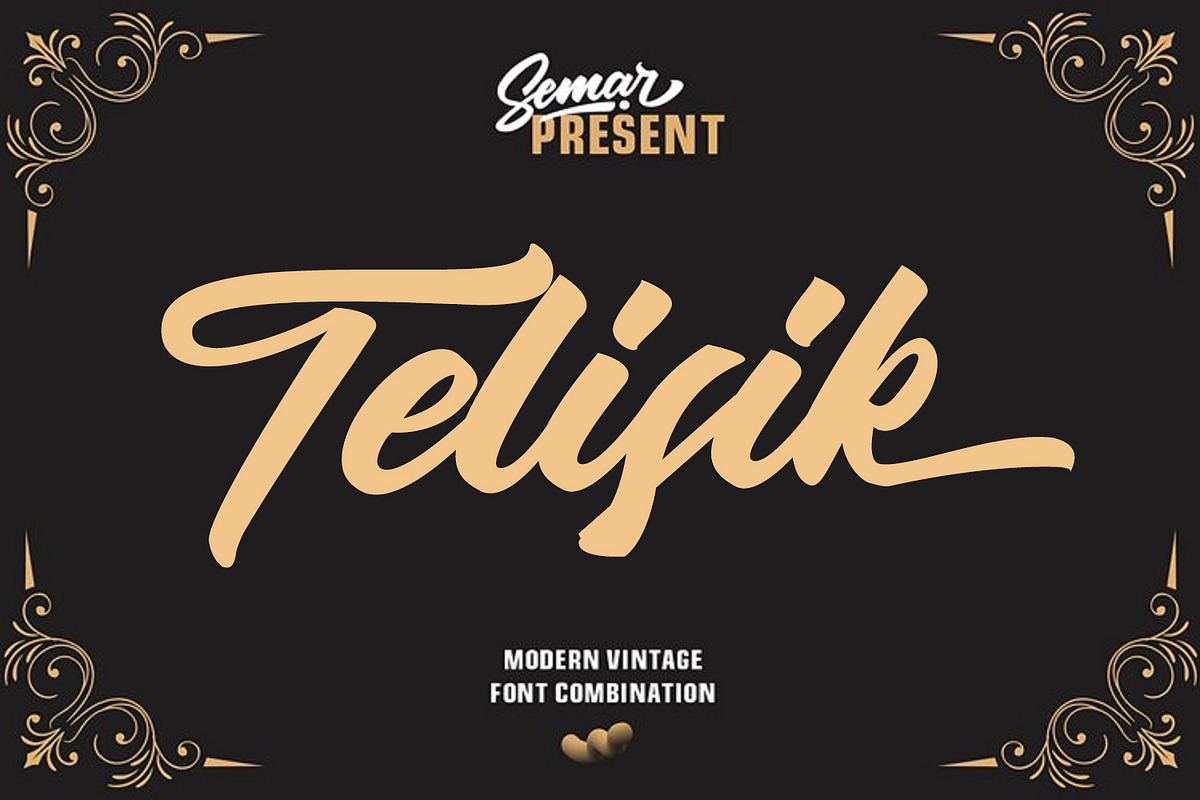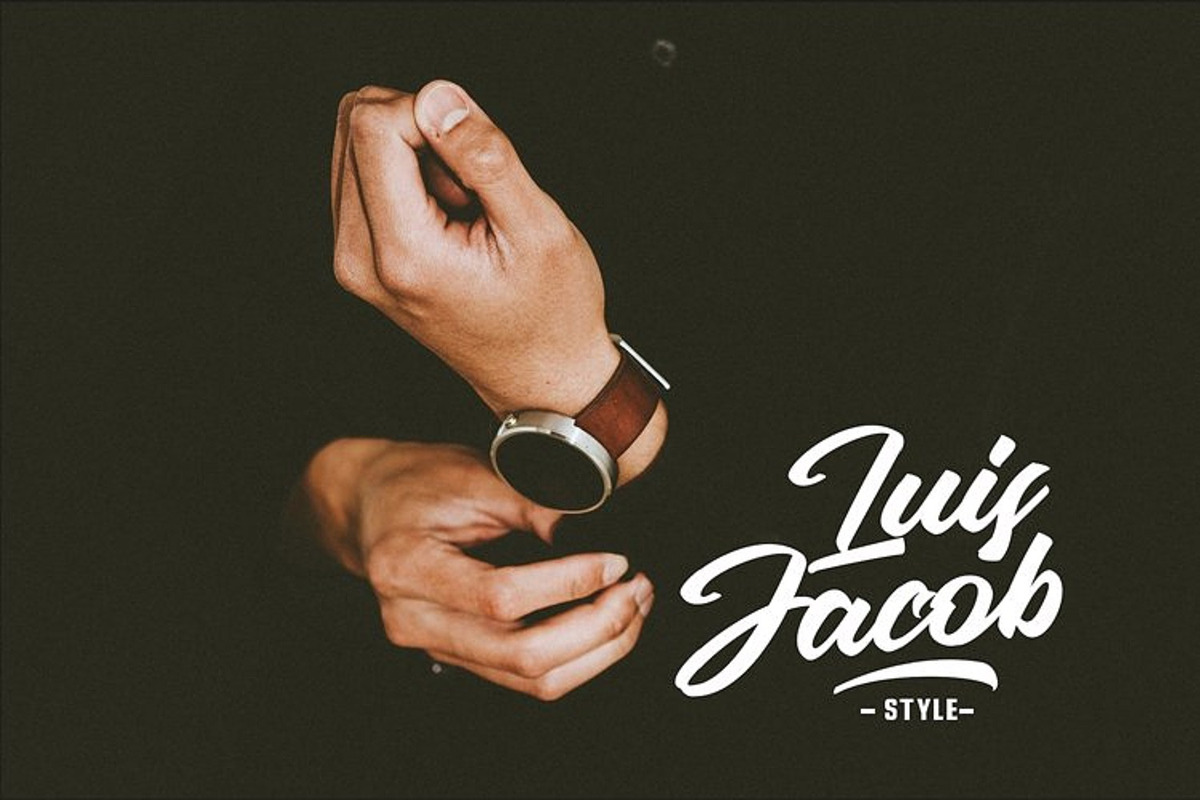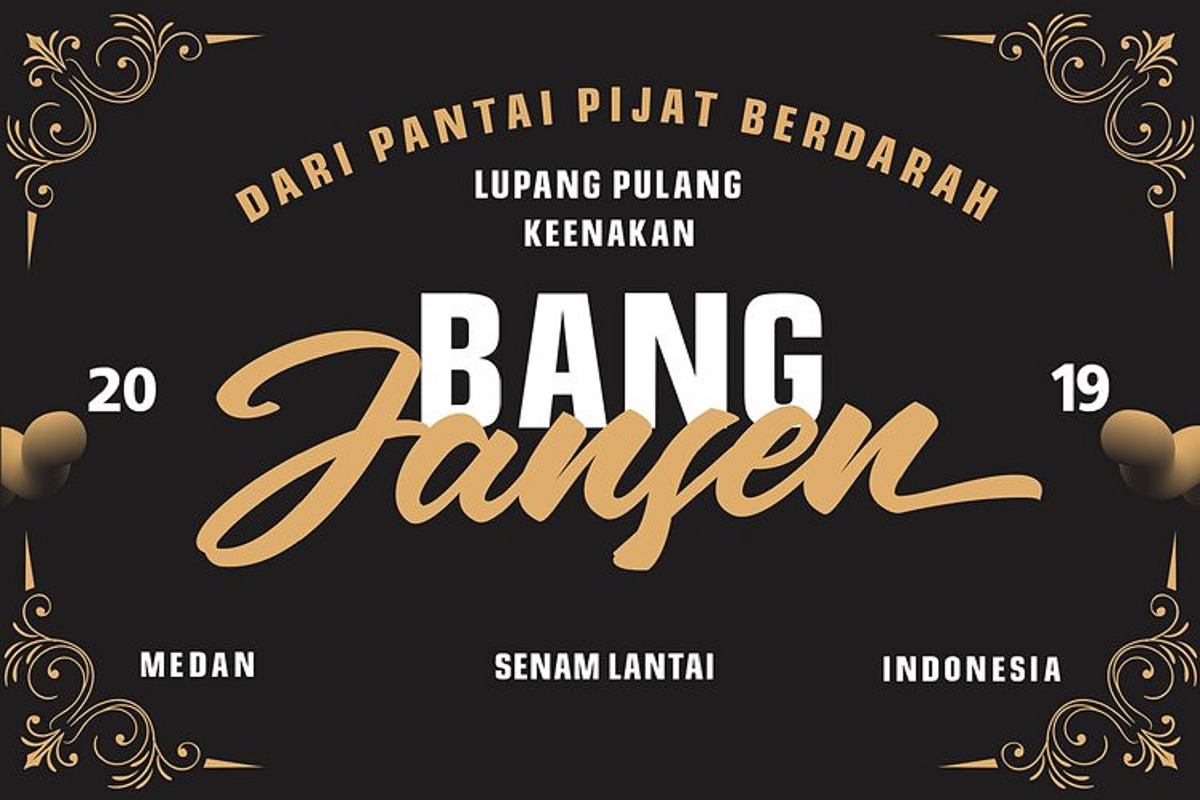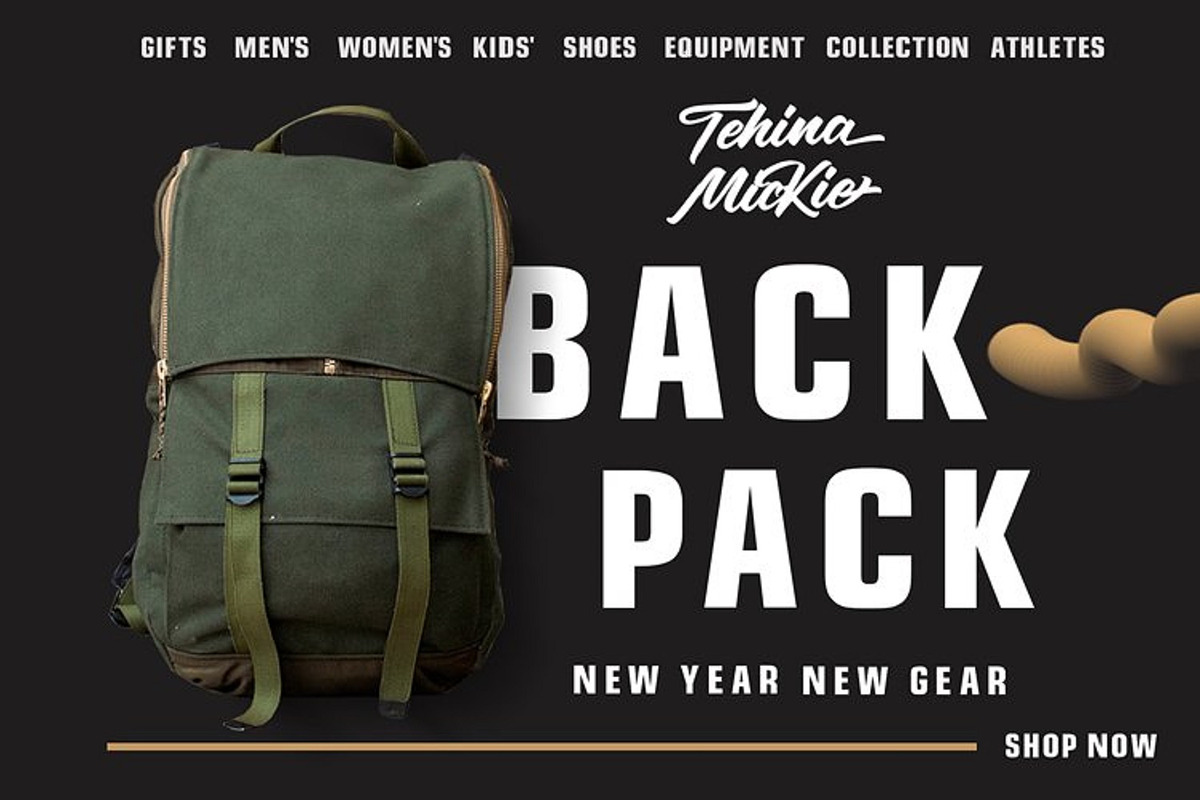
Telisik Script
Telisik is a signature-style script font designed to bring a sense of elegance, personality, and modern charm. Each stroke is carefully crafted to reflect the smoothness and grace of natural handwriting.
Perfect for branding, personal logos, wedding invitations, product packaging, aesthetic quotes, and other creative design projects.
- 2 Font Styles: Script & Sans
- Stylistic alternates (for Script)